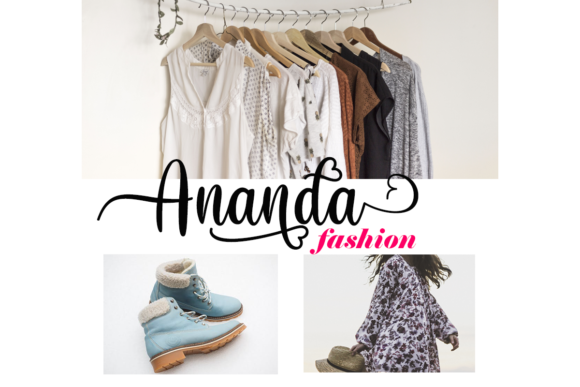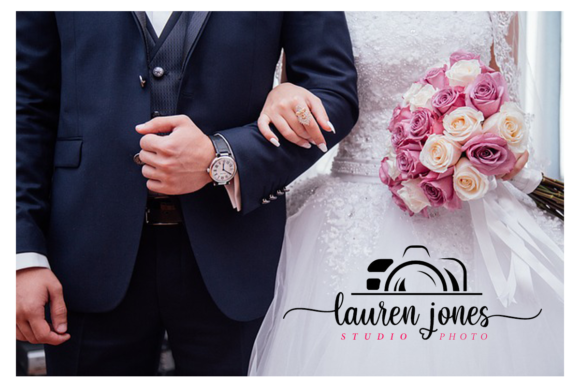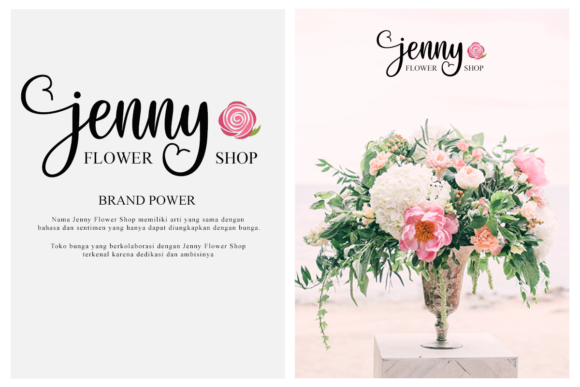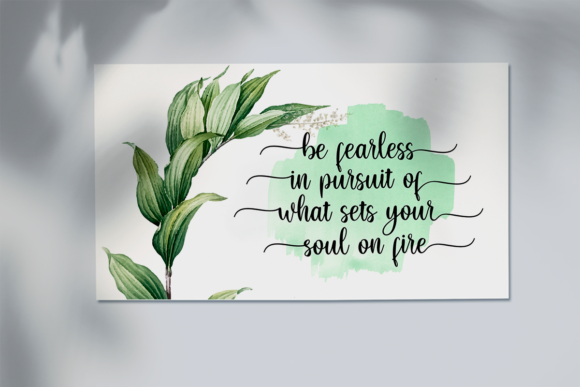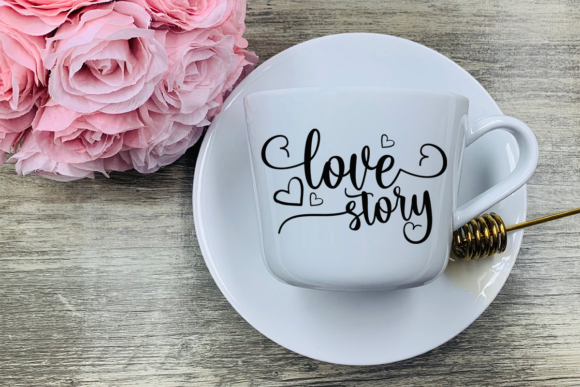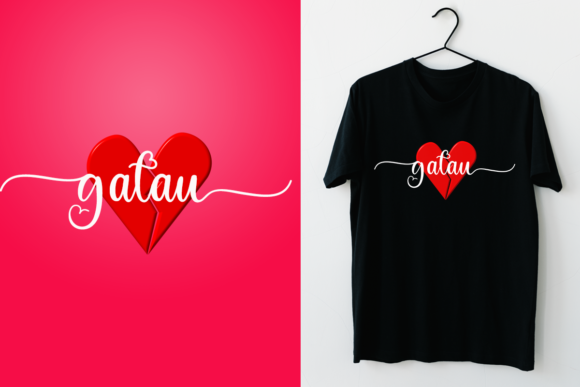
The Flashback Font: A Radiant and Beautiful Handwritten Font with a Delicate Charm
An Honest Review of Flashback Font
What I Love About Flashback ✨
- 💫 Its radiant and delicate charm instantly elevates any design project
- ✅ The handwritten style is both elegant and approachable, making it perfect for a wide range of applications
- 💖 The font’s romantic twist adds a touch of whimsy and sophistication to any design
- 🎨 Its versatility allows it to be used in various design contexts, from branding to packaging
While Flashback is an exceptional font, there are a few minor quirks to be aware of:
- 🤔 Some users may find the font’s script style a bit challenging to read at smaller sizes
- ⚠️ The font’s delicate nature may not be suitable for designs that require a bold or heavy look
The Backstory Behind Flashback Font
Flashback font was designed by a talented typographer who wanted to create a font that captured the essence of romance and nostalgia. Inspired by vintage love letters and antique typography, the designer crafted a font that exudes elegance and whimsy. With its delicate charm and radiant beauty, Flashback font is perfect for designers who want to add a touch of sophistication to their projects.
A: Flashback font is versatile and can be used in various design contexts, from branding to packaging. Experiment with different font sizes, styles, and OpenType features to find the perfect look for your project.